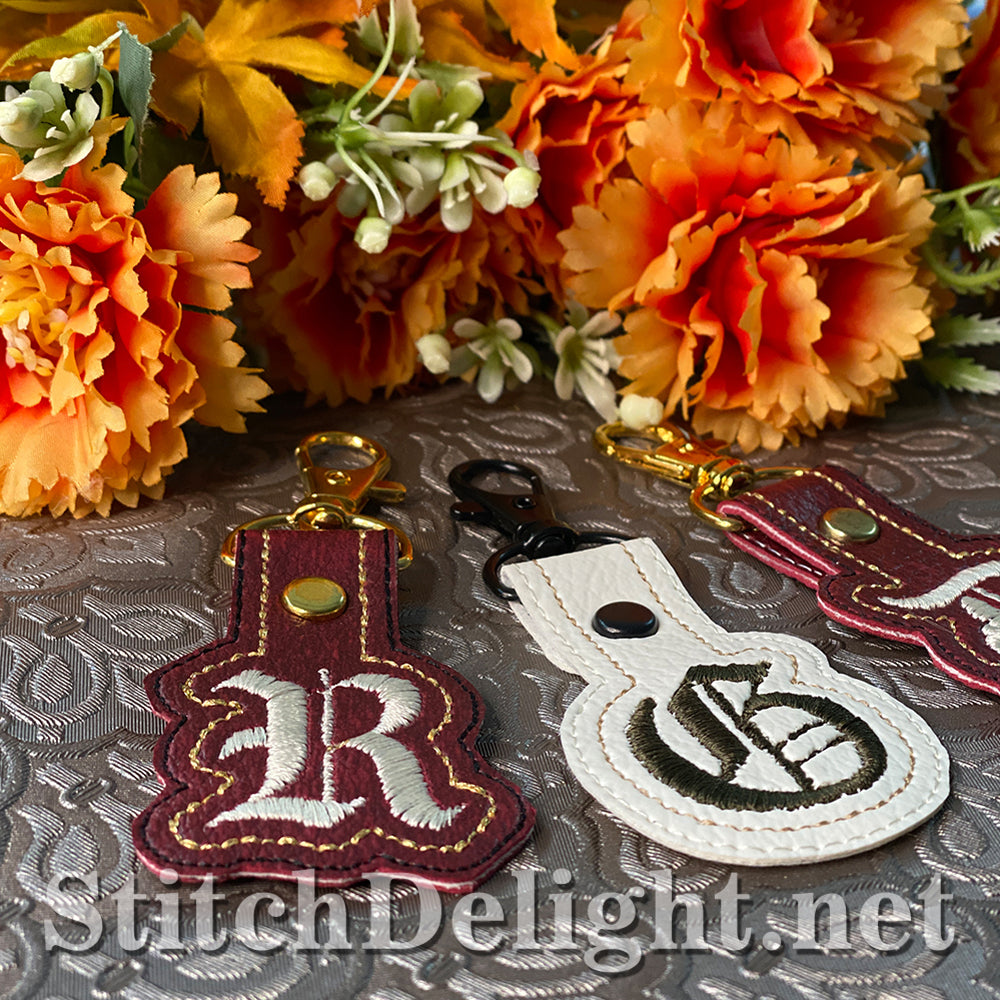
These tags are a great way to personalize luggage, school bags, car key sets and so much more. They add a personal touch with elegance!
They are big enough to easily be read and small enough so they won't come in the way.